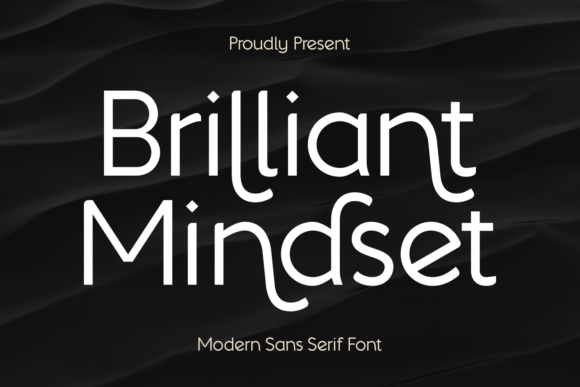
A Game-Changing Font: First Impressions
The Brilliant Mindset font is a creative sans serif font that blends modern structure with artistic flourishes. Its quirky swashes and unexpected letter twists add a sense of individuality and intelligence to logos, quotes, social posts, and motivational campaigns. This font is ideal for creators who want a minimalist font with a bold creative spirit. ✅
• ✨ Unique and artistic flair with swashes and twists
• ✅ Highly legible, even at smaller sizes
• 💡 Perfect for creating eye-catching social media posts and motivational quotes
• 🎨 Versatile and works well with a variety of design styles
While the Brilliant Mindset font is amazing, there are a few things to keep in mind: 🤔
• ⚠️ Some swashes and flourishes may not work well with all design styles or color schemes
• ⚠️ Limited availability of certain characters or glyphs
The Story Behind Brilliant Mindset
The Brilliant Mindset font was designed with the creative individual in mind. Its unique blend of modern structure and artistic flourishes was inspired by the world of art and design. The designer wanted to create a font that would inspire creativity and individuality, while still being highly legible and versatile. 💡
Q: What type of projects is Brilliant Mindset best suited for?
A: Brilliant Mindset is perfect for creative projects, such as social media posts, motivational quotes, logos, and more. It’s ideal for designers, crafters, and creative hobbyists who want to add a bold and artistic touch to their work.